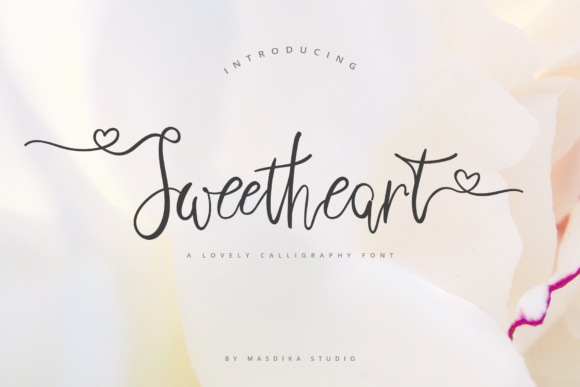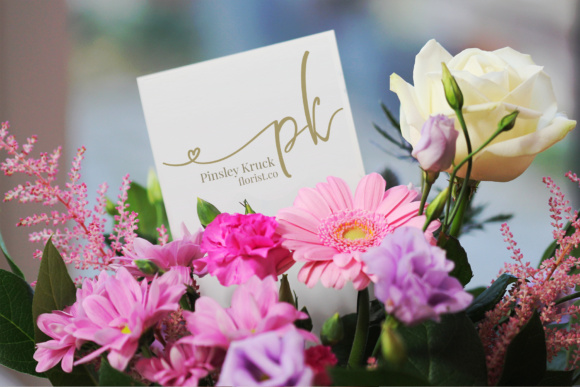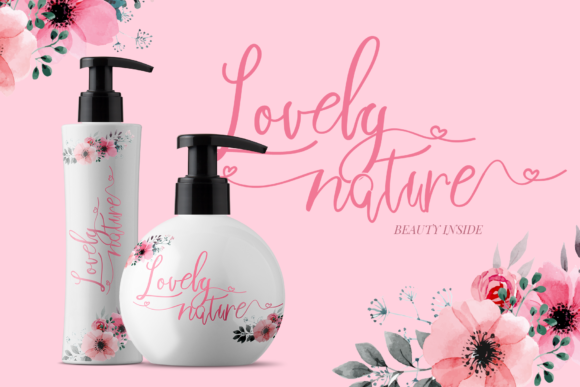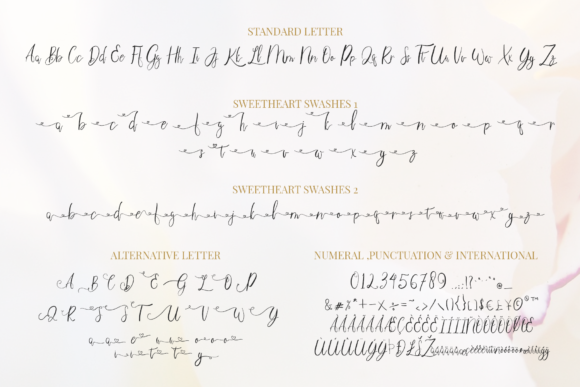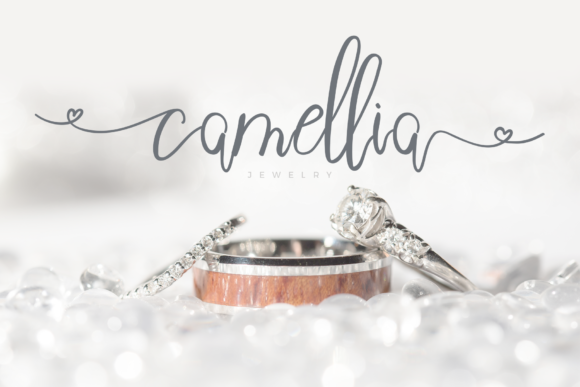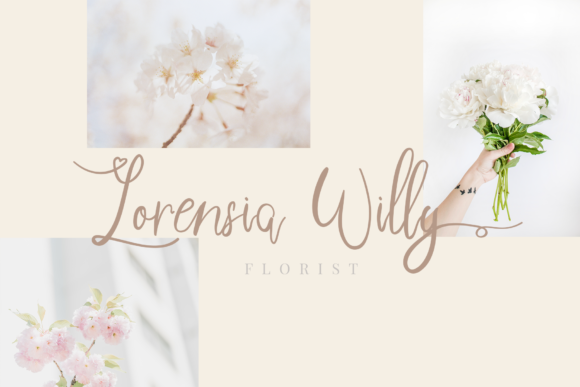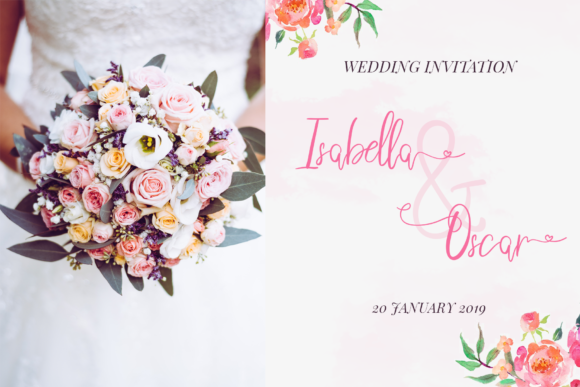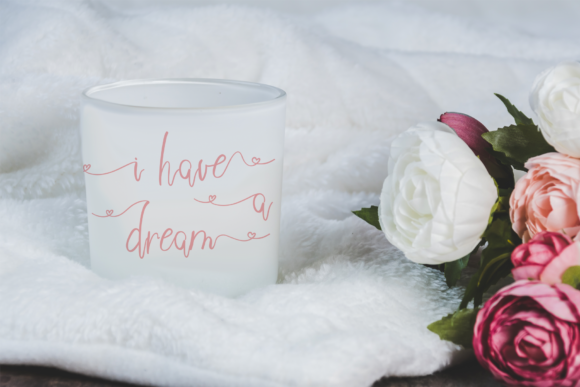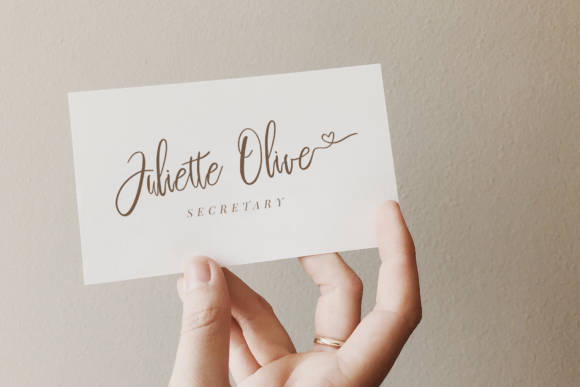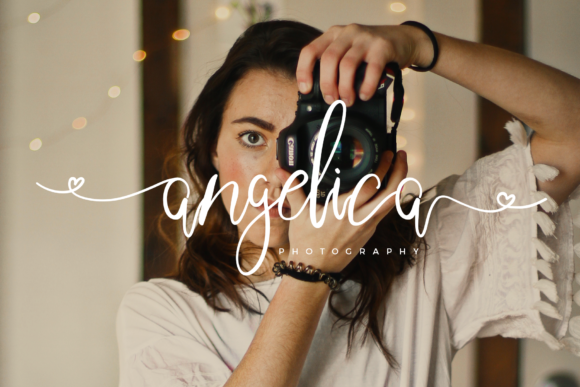
Sweetheart Font
About Sweetheart Font
Sweetheart is a magical handwritten font carefully created with a touch of elegance. This is a beautiful combination of timeless elegance and authentic calligraphy. It features an incredibly classic style, while still keeping a friendly feel. Sweetheart is the perfect font for making original and outstanding designs. It brings cute swashes that will take your projects to the next level.
This font is PUA encoded which means you can access all of the amazing glyphs and swashes with ease! It also features a wealth of special features including alternate glyphs and ligatures.